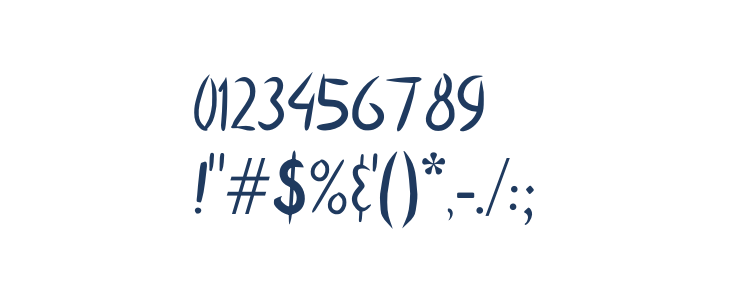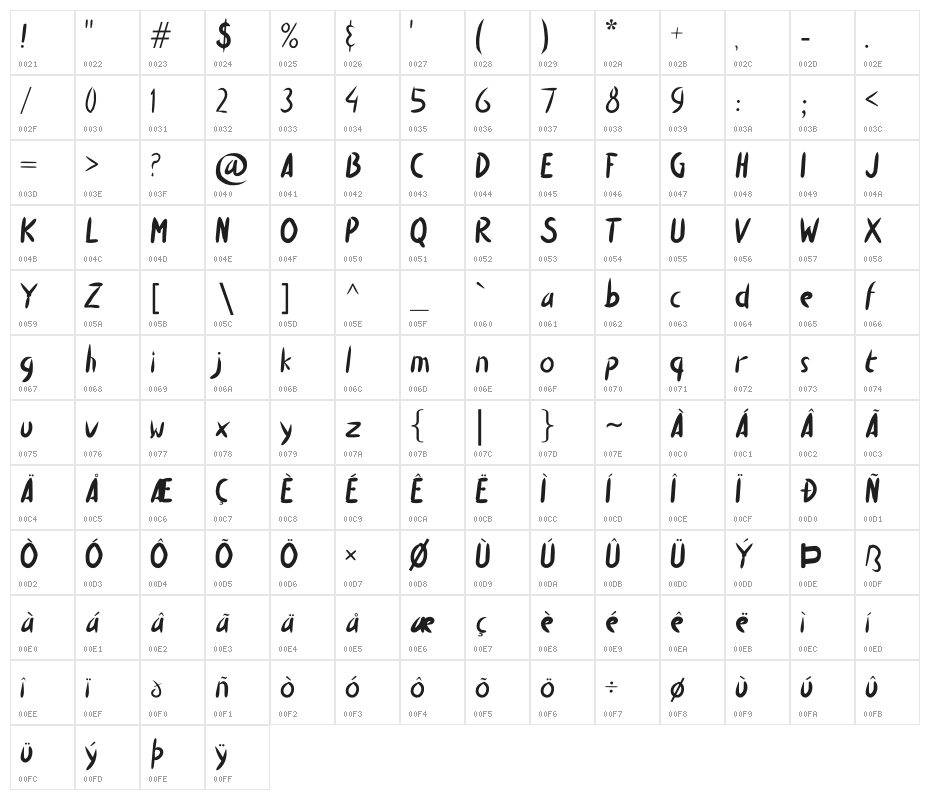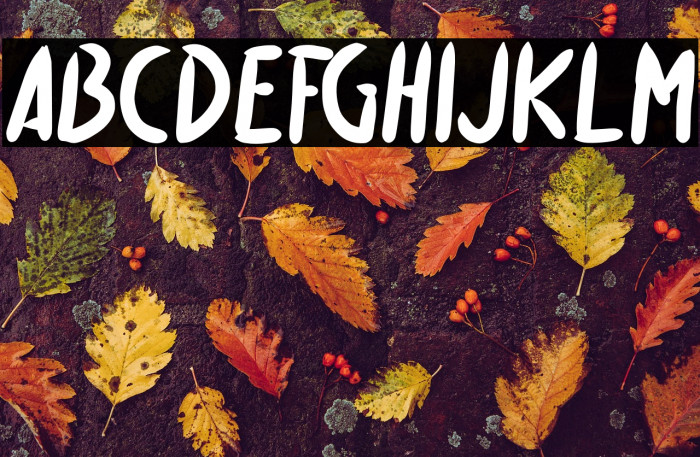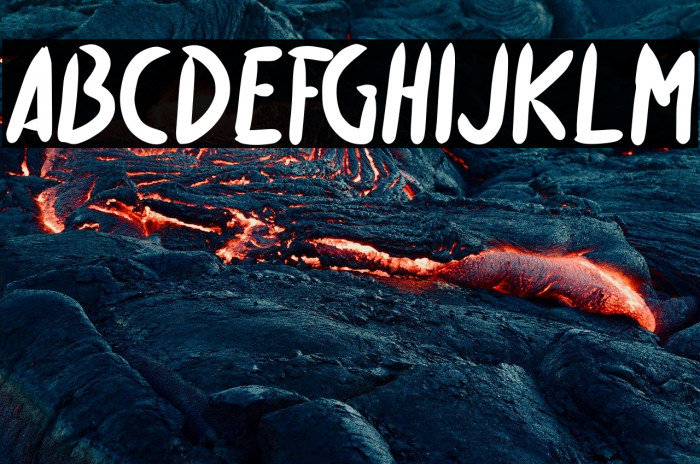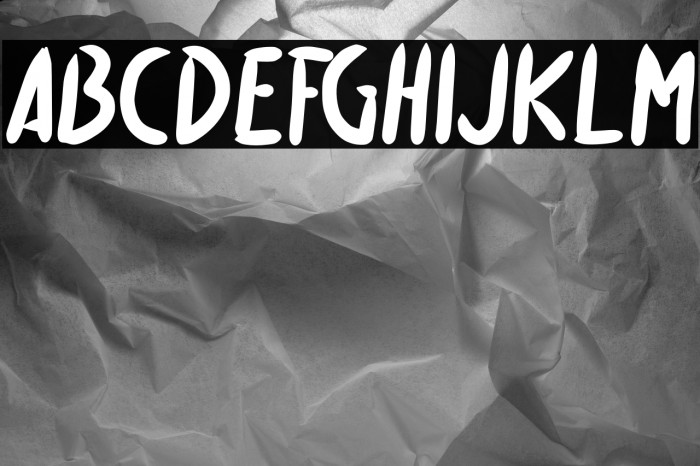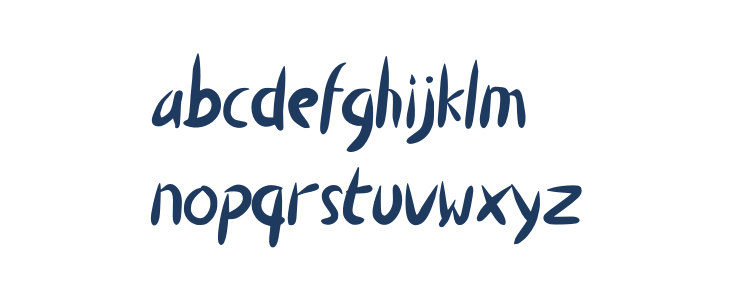
Mr. Blue Font
Mr. Blue Description
This font features a playful and informal handwritten style, characterized by its bold and slightly irregular strokes. The letters have a dynamic flow, with varying angles and curves that give it a lively and energetic appearance. The uppercase and lowercase letters maintain a consistent style, while the numerals and special characters complement the overall design. The font's casual and approachable nature makes it suitable for creative and fun projects, adding a personal touch to any text. Its unique style stands out, making it ideal for attention-grabbing headlines or artistic designs.
| Use Case | Headlines, Creative projects, Artistic designs |
| Proposed Projects | Ideal for greeting cards, posters, children's books, and creative branding. |